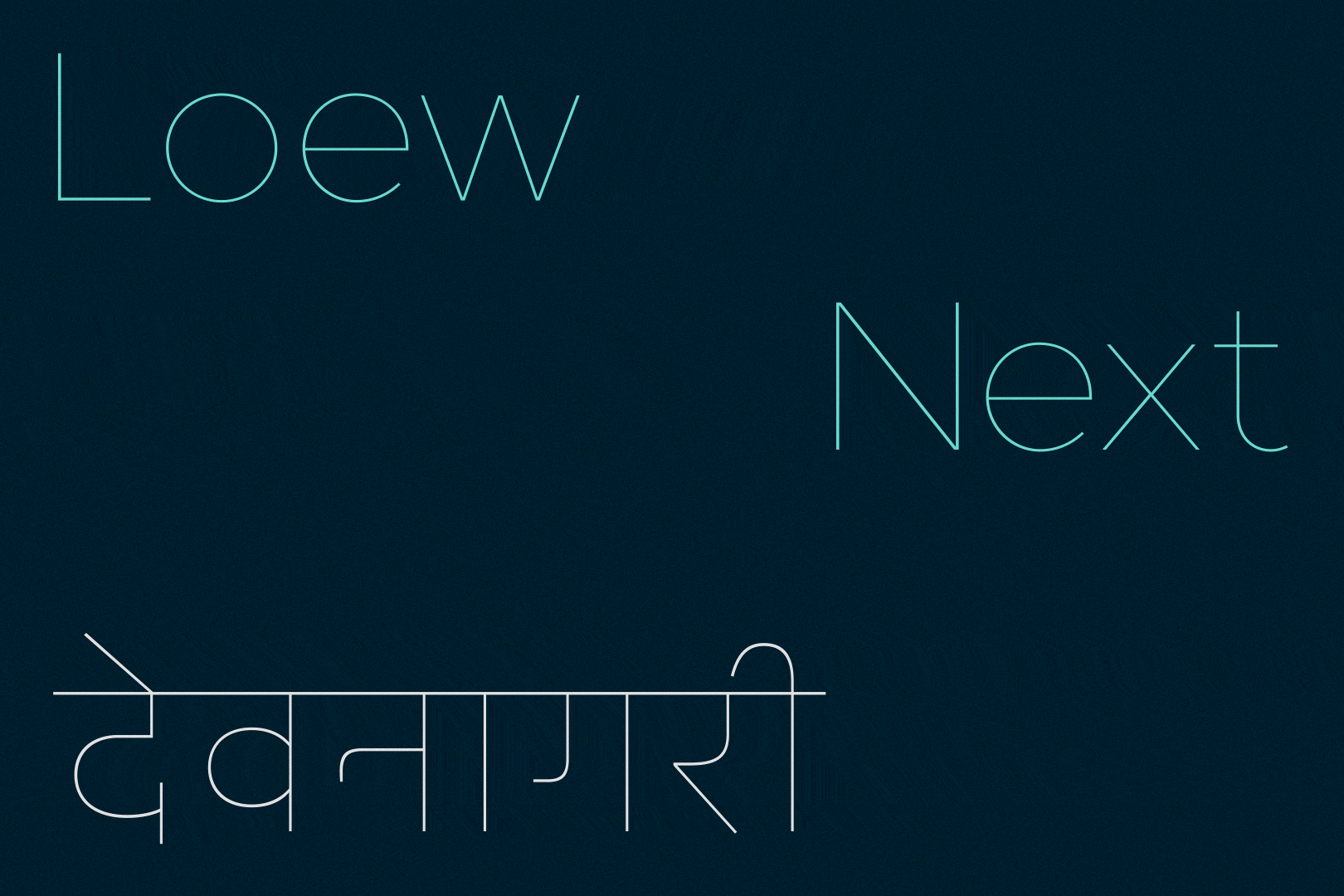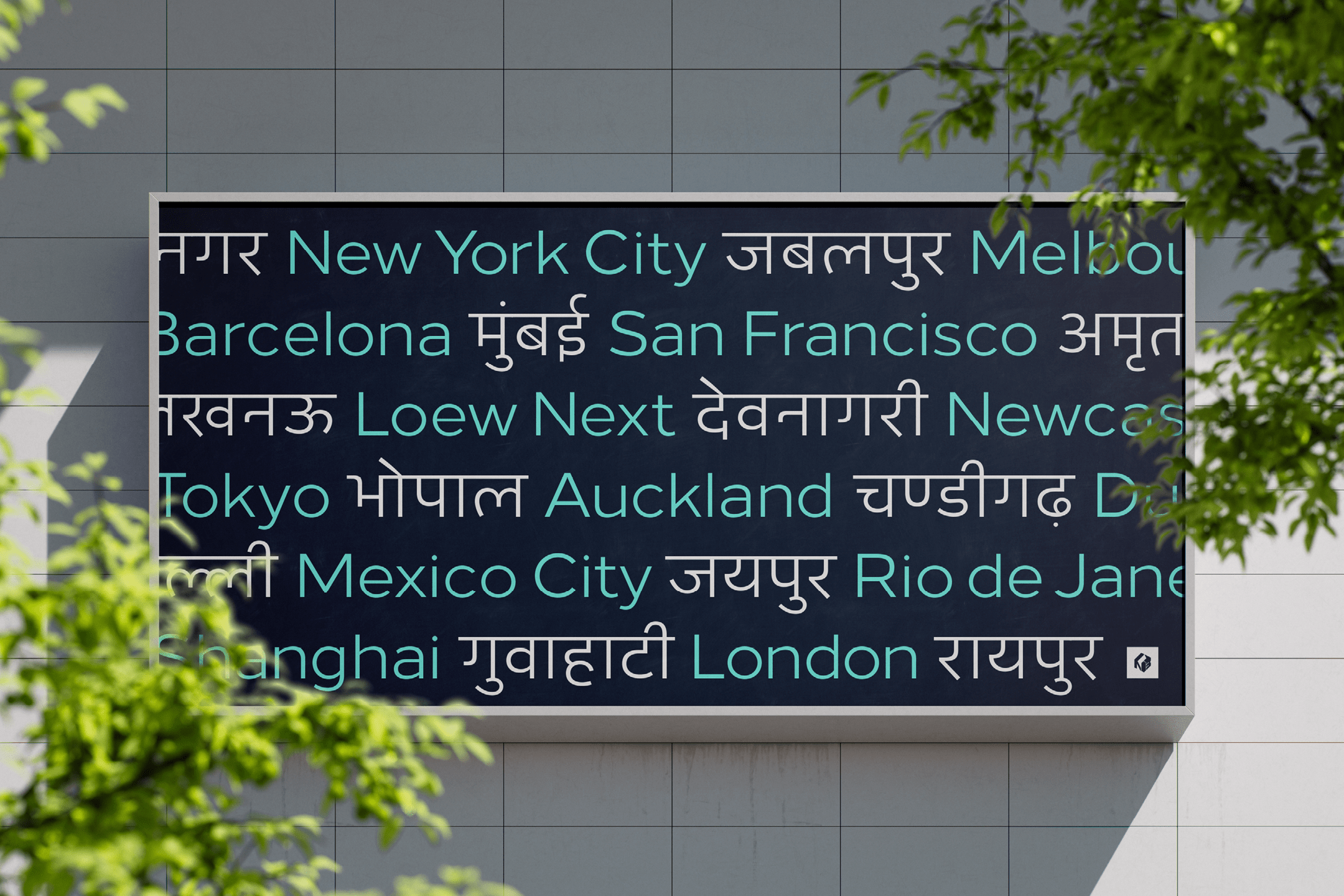
Loew Next Devanagari is an extension of the Loew Next typeface, designed to incorporate the Devanagari script used in languages like Hindi, Marathi, and Sanskrit. It adapts the geometric precision and modernity of Loew Next to accommodate the intricate forms of Devanagari, ensuring a cohesive and stylish integration with the original Latin characters.
This version maintains high readability and visual consistency across both scripts, making it versatile for various applications. Loew Next Devanagari combines the clarity and functional design of the original typeface with the specific needs of multi-script text, broadening its usability for a global audience.